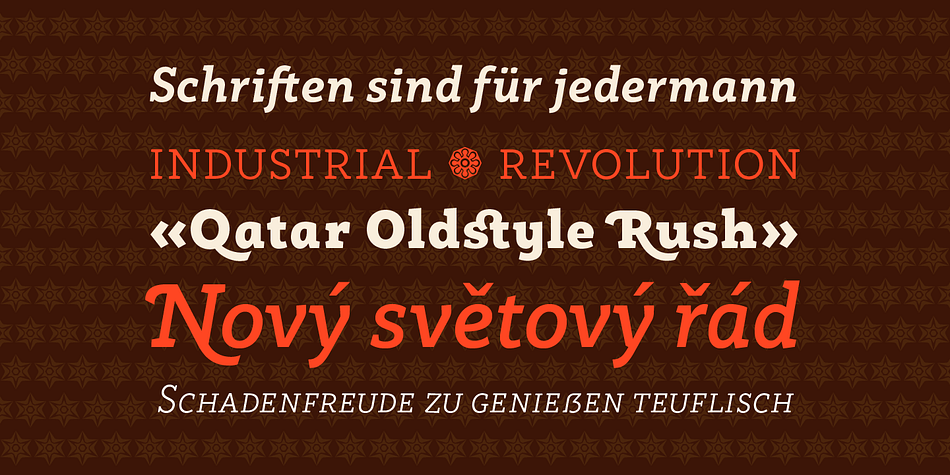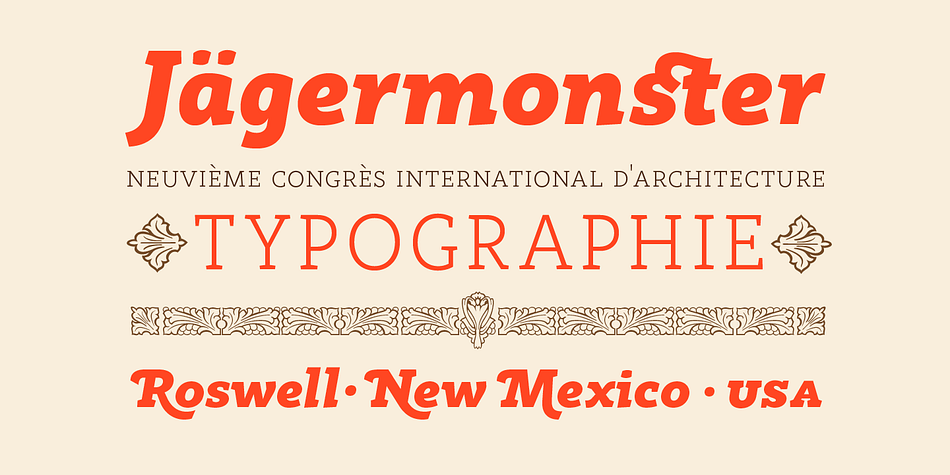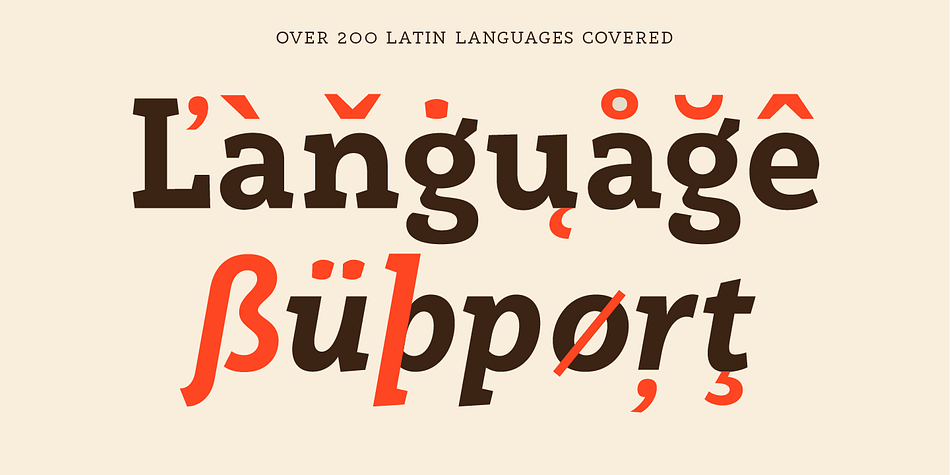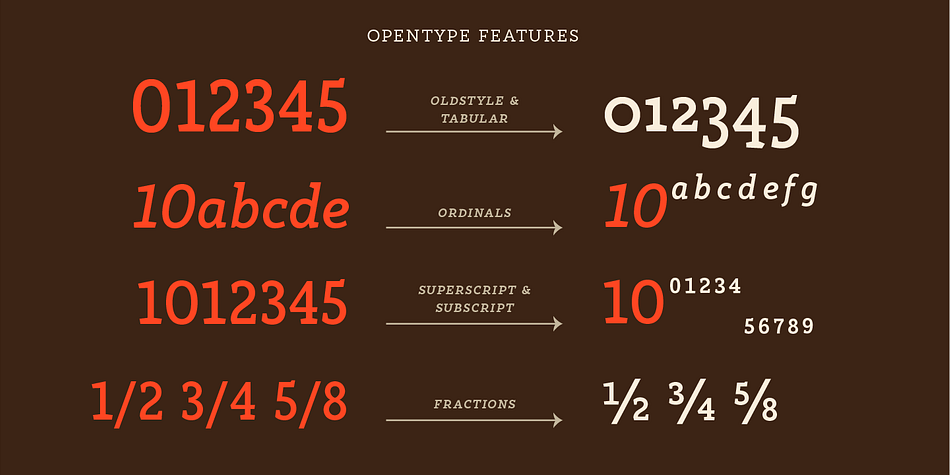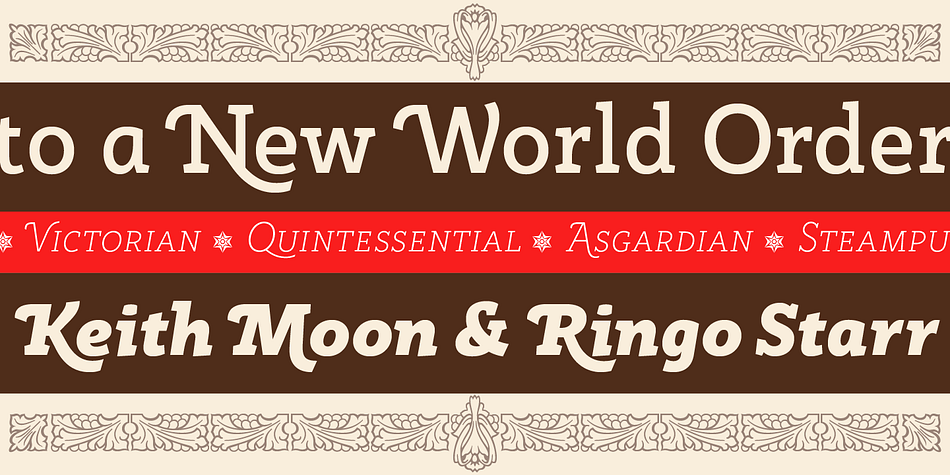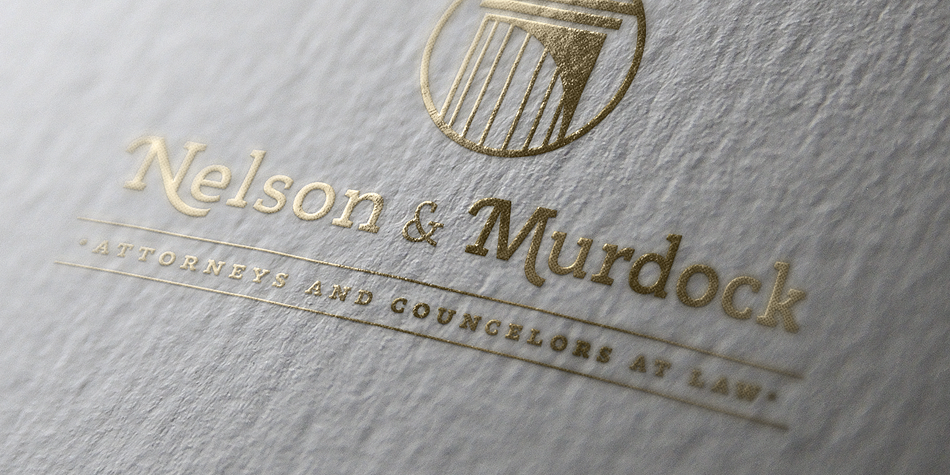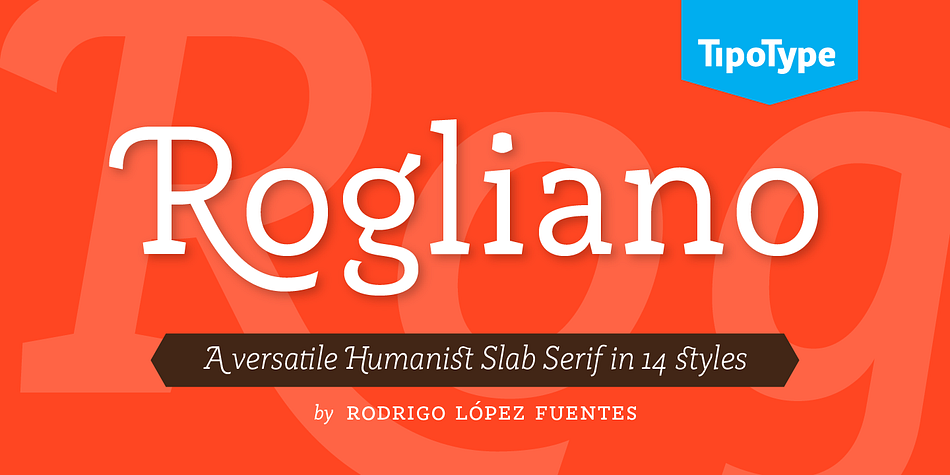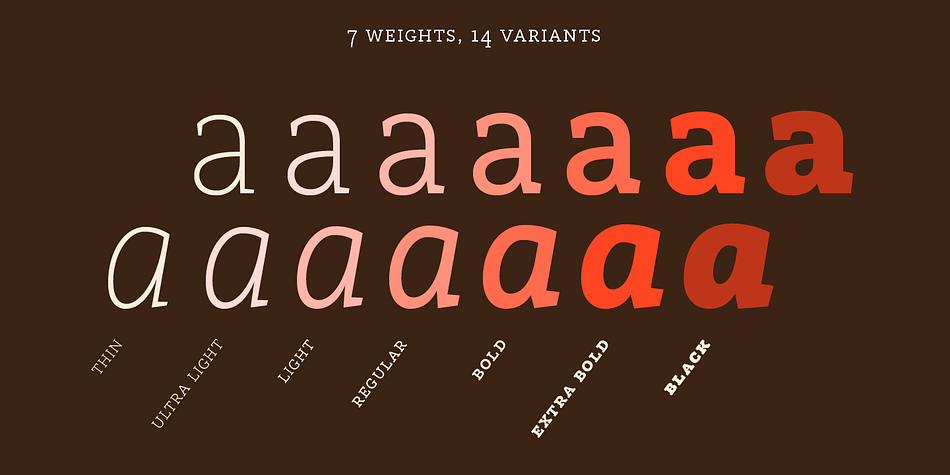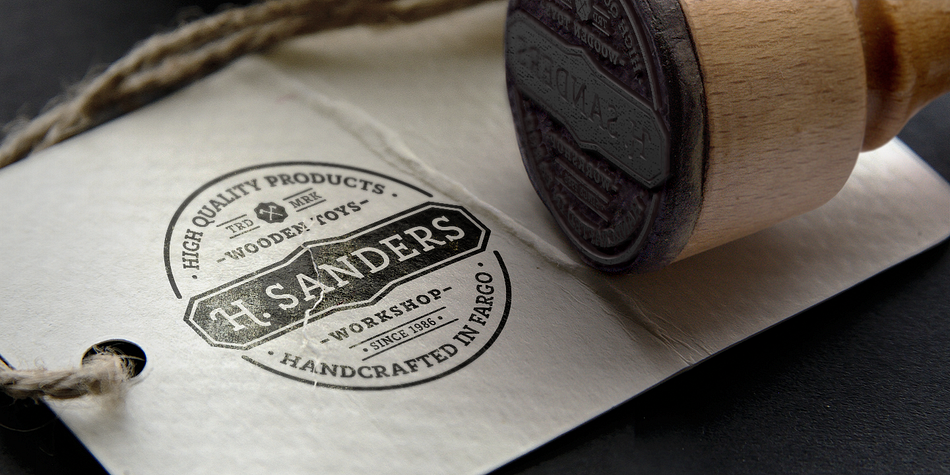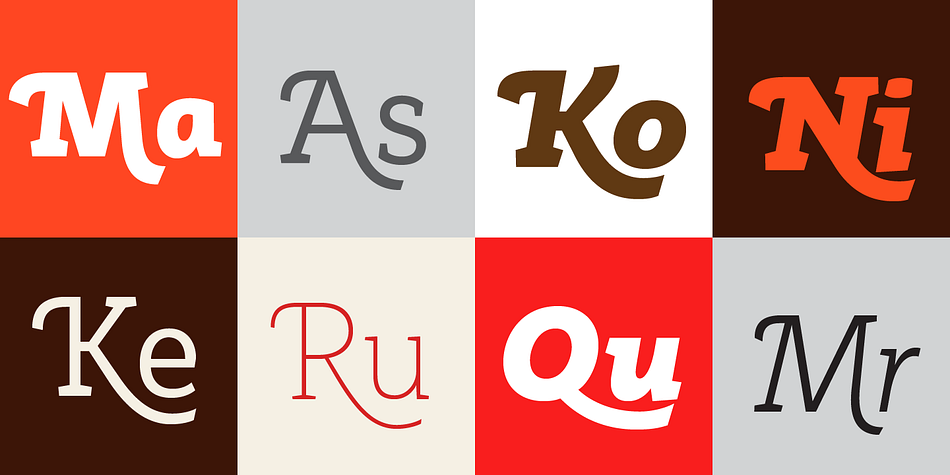
Rogliano is a slab serif font family. This typeface has fourteen styles and was published by TipoType.
Rogliano is an affable Slab Serif. On one hand, it responds to the classic tenet of strong and direct alphabets of the Industrial Revolution period. While nourishing the text of a warm environment, it takes the freedom to flirt with lettering and lithographic posters of the Victorian era: due to its multiple stylistic alternatives, borders and decorative ornaments. This wide range of voices makes Rogliano a versatile typeface that can move from the mechanical to humanistic with absolute ease, and perform efficiently from branding to editorial design.